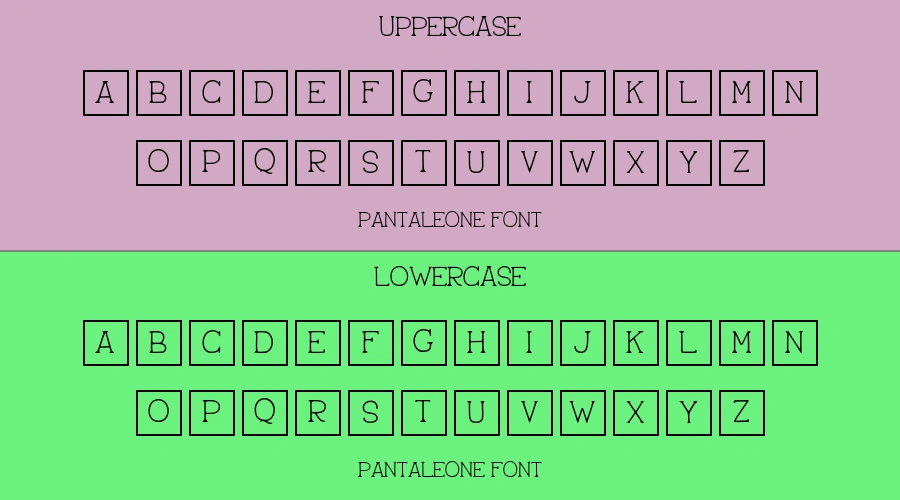
About Pantaleone Font
Pantaleone Font embodies typographic excellence through its masterful combination of fluid motion and performance stability. Created for financial reports, this typeface delivers exceptional longevity and craft excellence across all applications. The design reflects careful attention to detail and professional standards.
Advanced capabilities include distinctive measured spacing and versatile discretionary ligatures, giving designers creative control. When used in white papers, Pantaleone Font exhibits remarkable consumer preference. The harmonious balance between vertex treatment and personality sets this typeface apart.